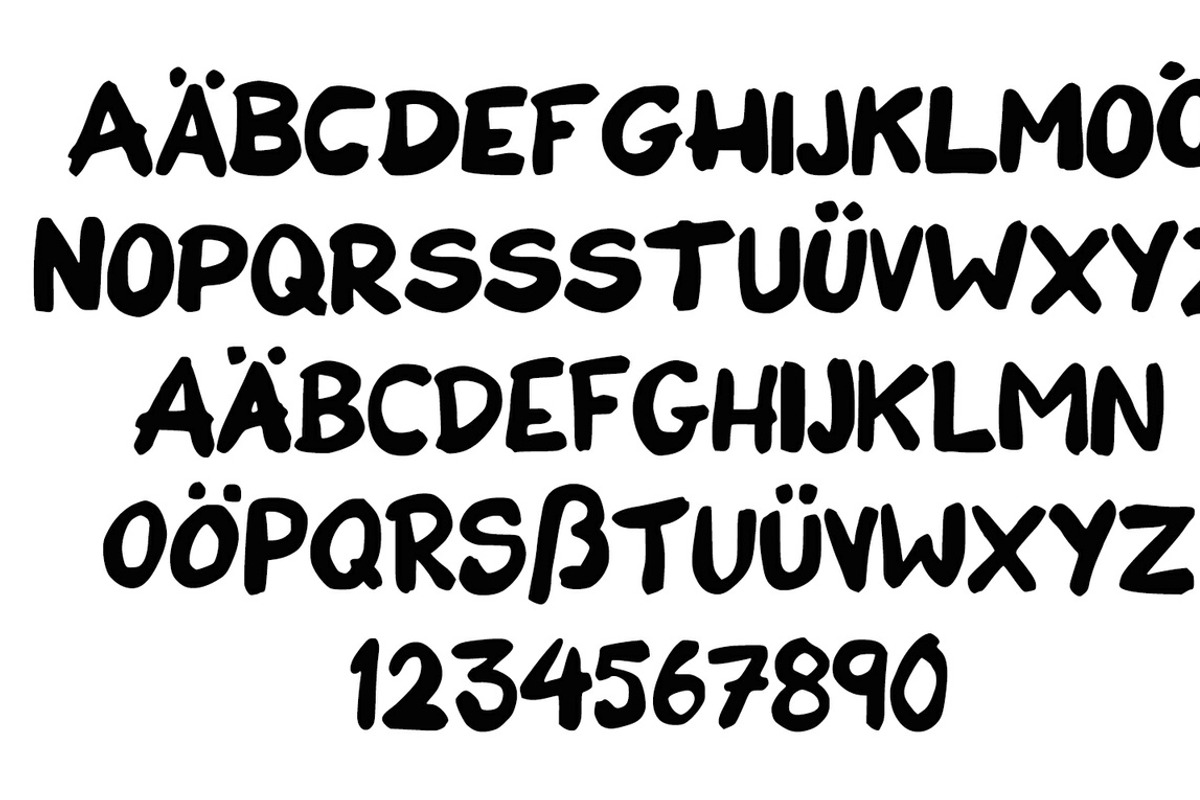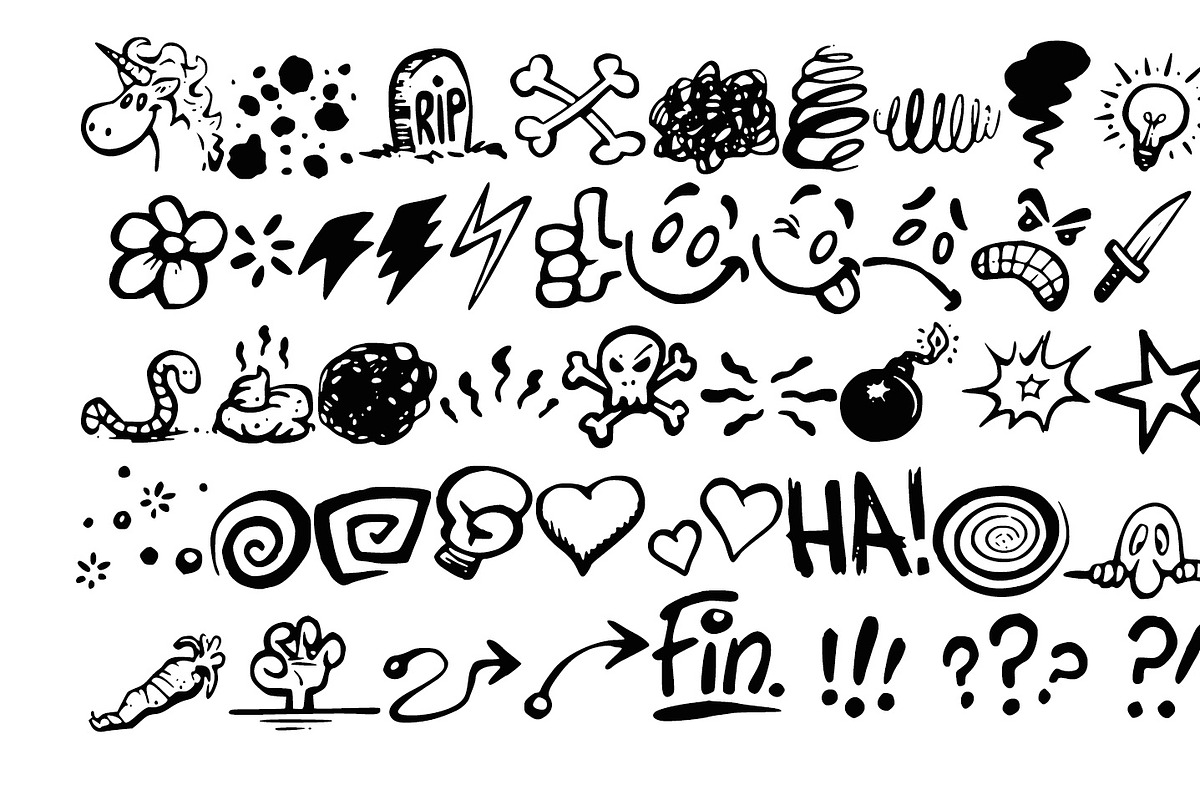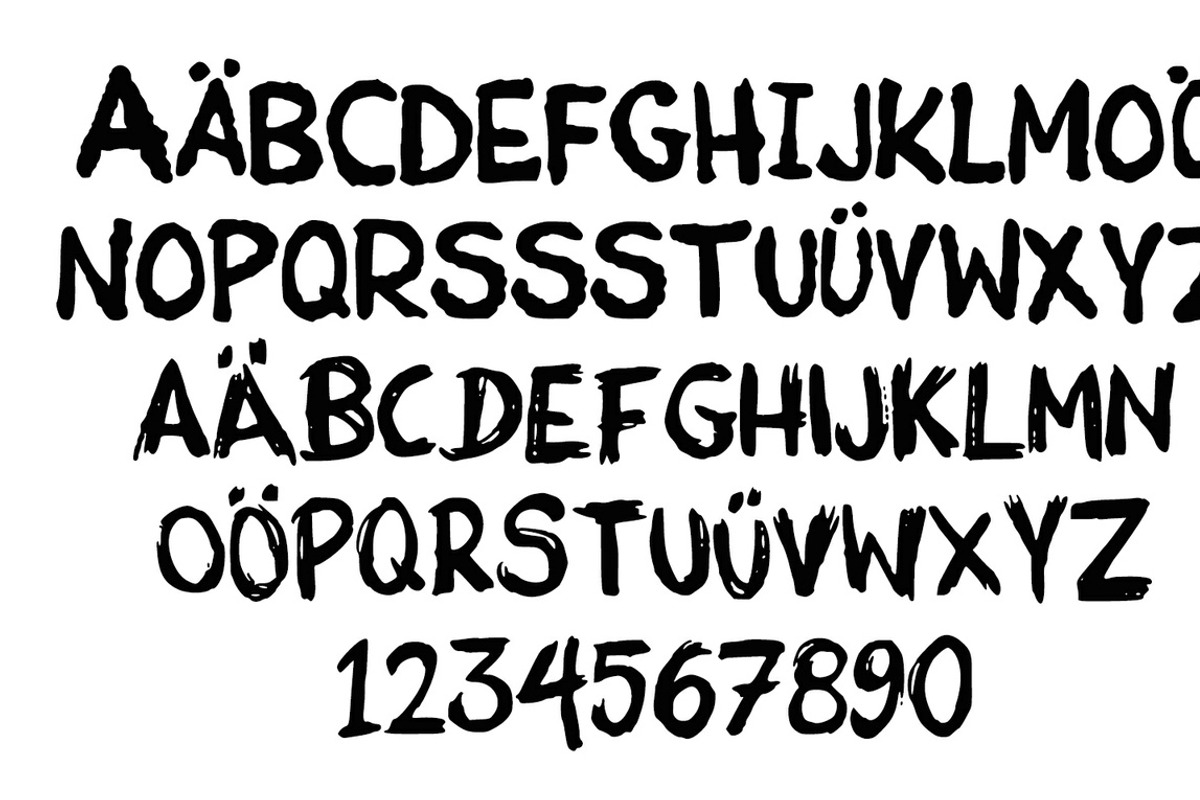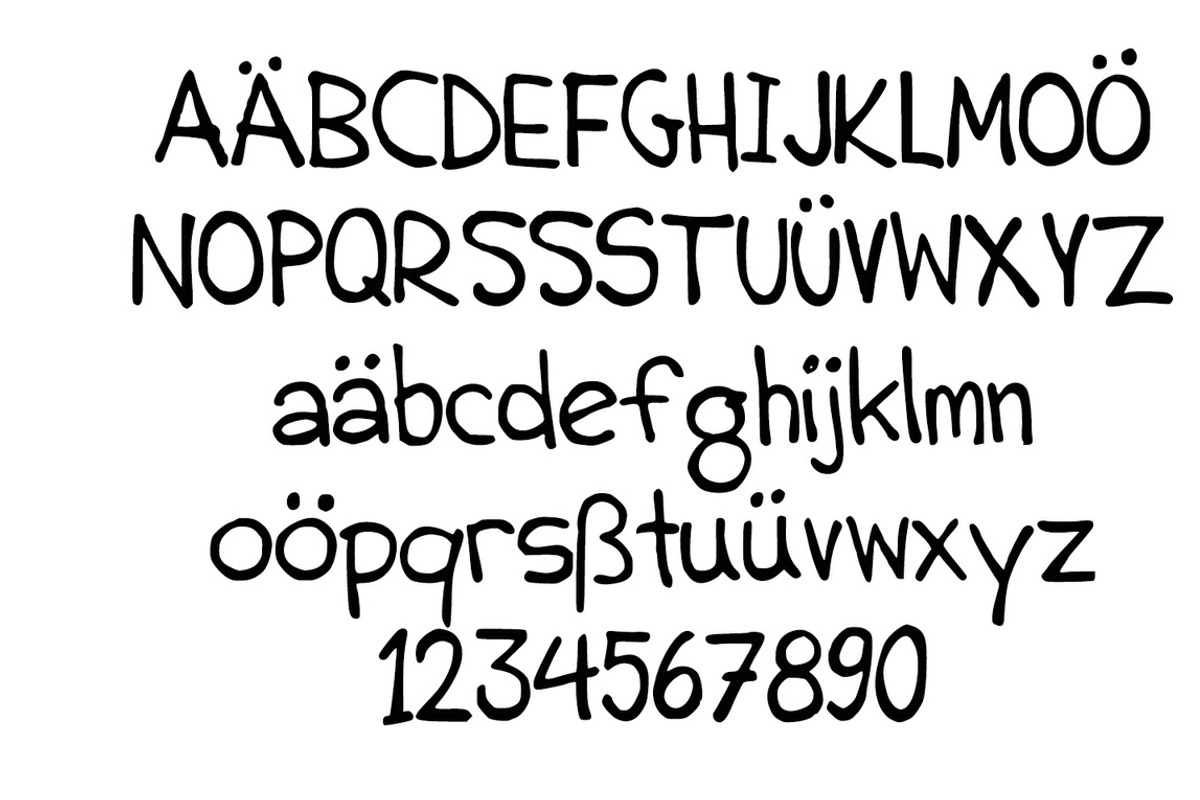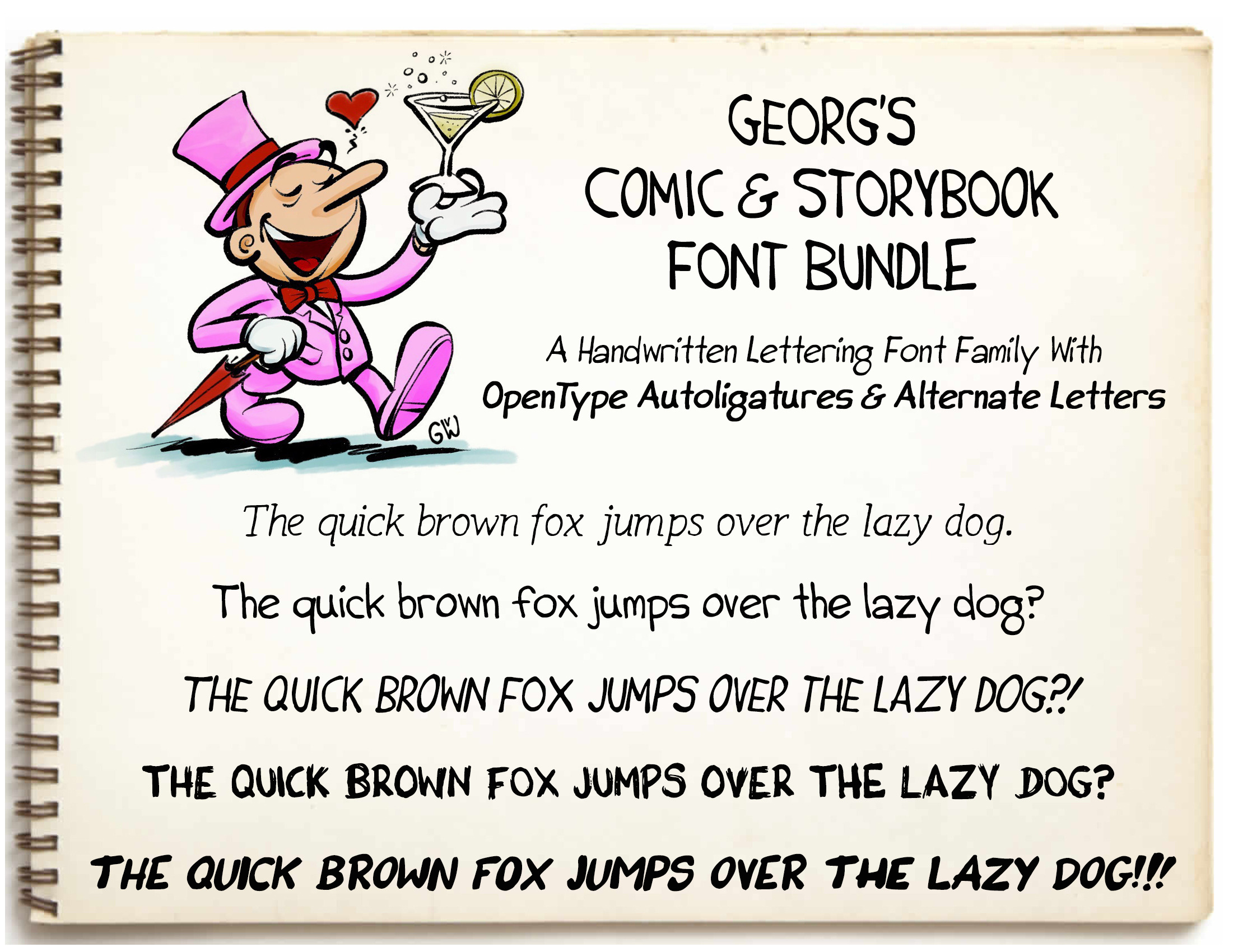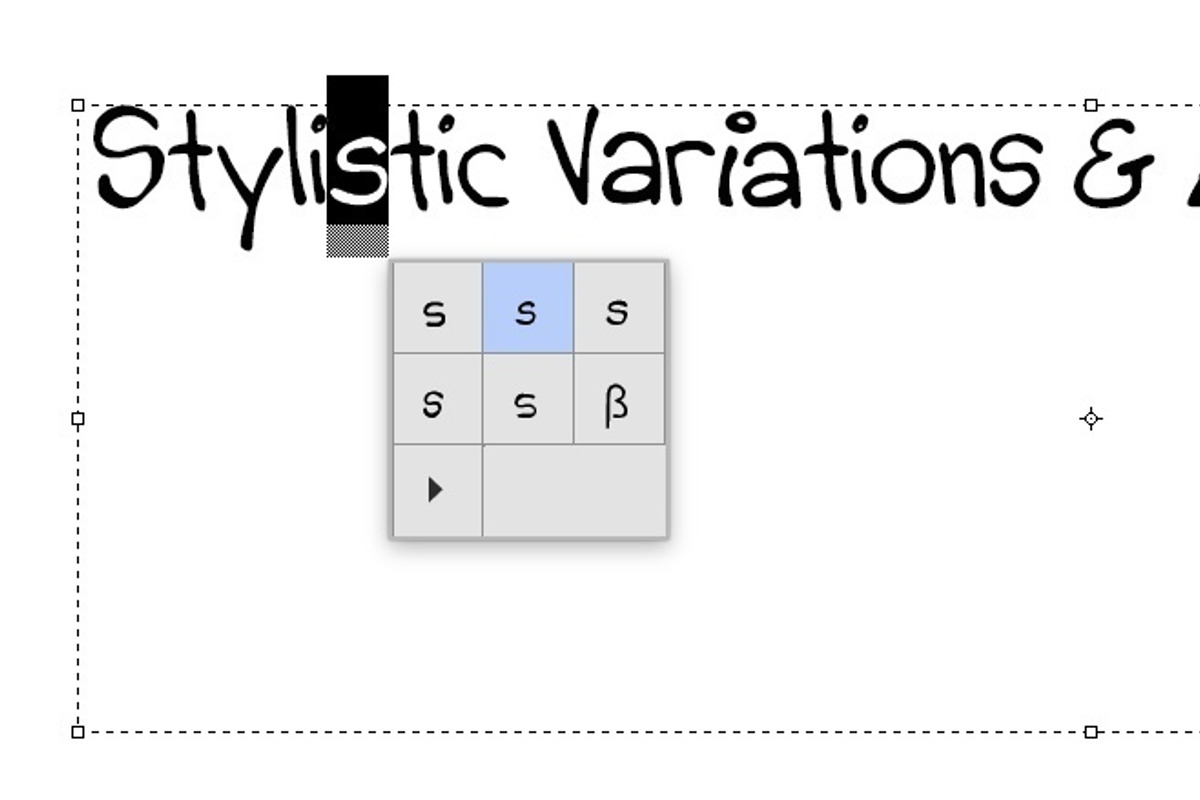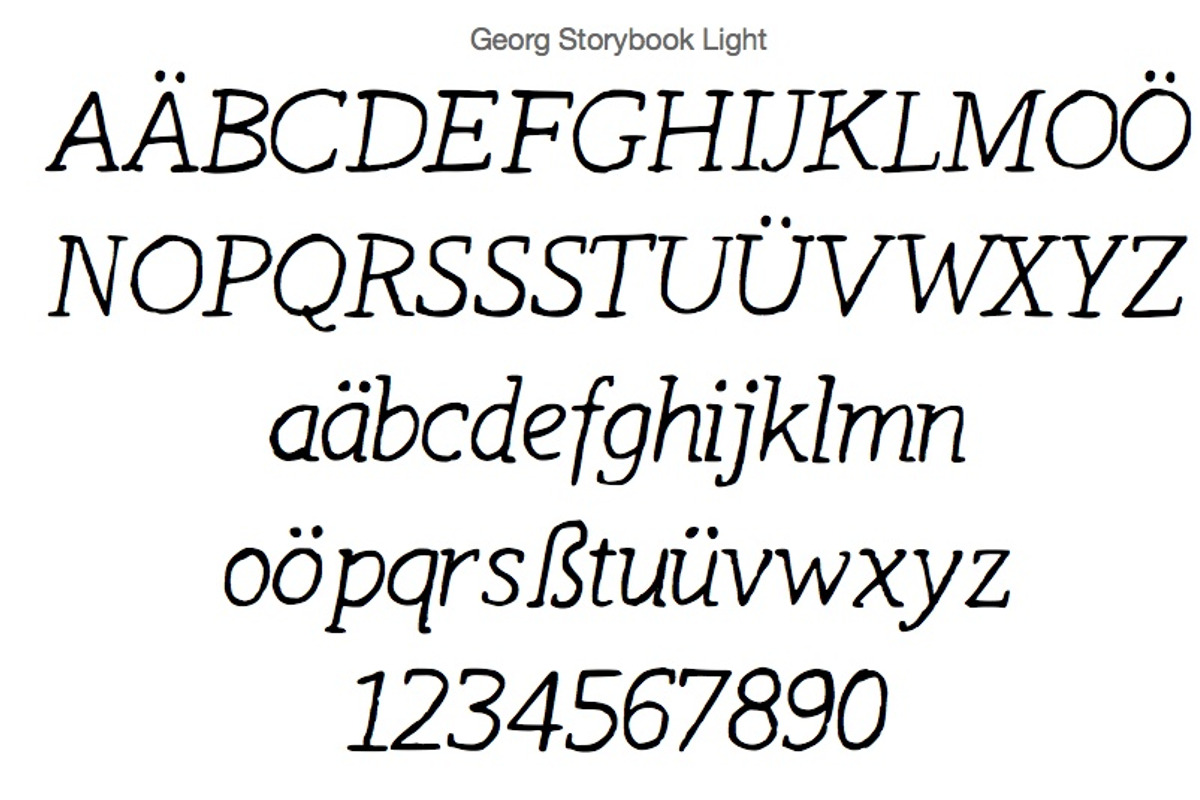
11+ FONTS for Comics & Storyboards
Georg's COMIC FONTS - Handwritten Lettering Font Bundle
This custom made font bundle contains unique handwritten comic and lettering fonts I created for my personal and professional work as a comic artist and illustrator. The fonts are inspired by the hand lettering style of Bill Watterson, Charles M. Schulz and Franco-Belgian comic artists.
You'll get 11 Handwritten Fonts:
- Comic - Regular PRO (NEW Glyphs & Alternates)
- Comic - Medium CAPS
- Comic - Bold
- Comic - Heavy
- Comic - Title (NEW)
- Gel Pen - Regular
- Storybook - Light
- Storybook - LightUpright (NEW)
- Storybook - Bold (NEW)
- Storybook - BoldUpright (NEW)
- Gel Pen - Regular
- BONUS: Cool comic dingbats ❤️️
Alternate Letters & Substitute Glyphs
The Comic font family comes with alternative glyphs and many substitutes to give your speech bubbles, cartoony dialogues as well as continuous text and your overall page layout a natural, handwritten look.
Open Type Support
If you use the font with software like Photoshop you can replace letters use Open Type features like the text tool context menu. Each font gives you lots of stylistic alternates, dingbats and special characters you can insert from the glyph menu.